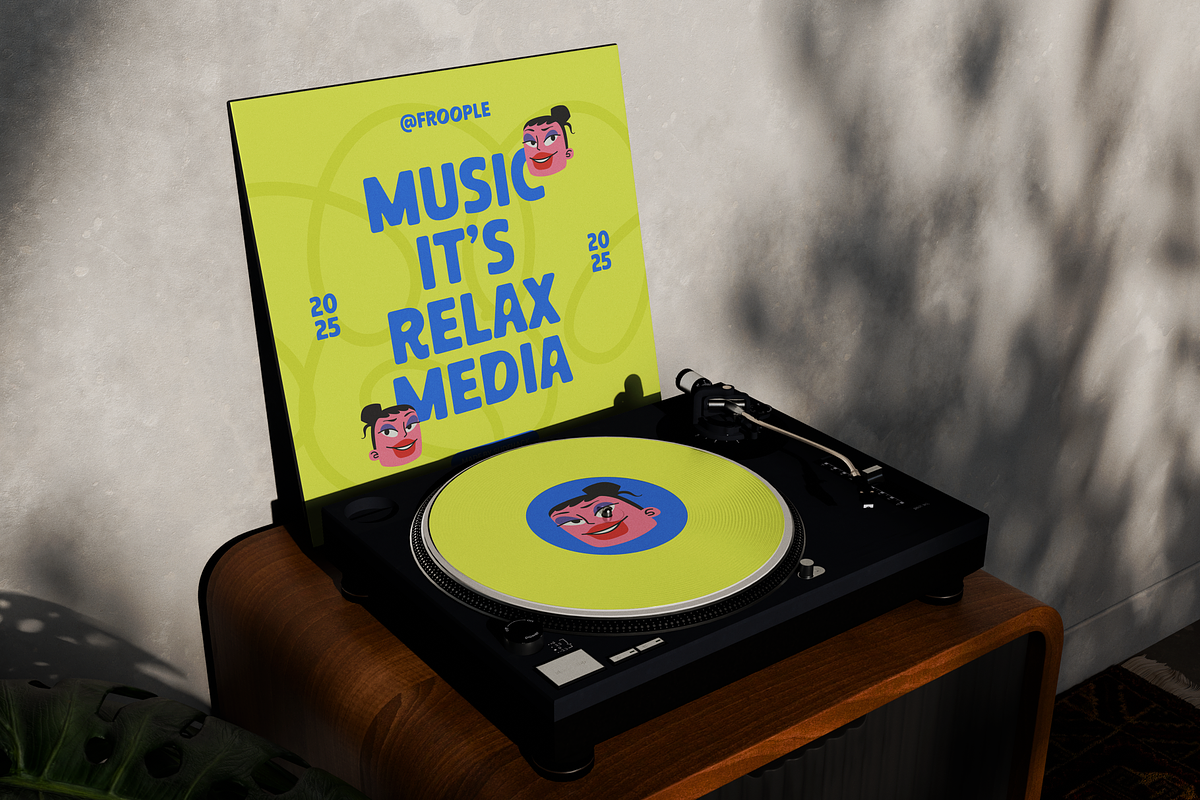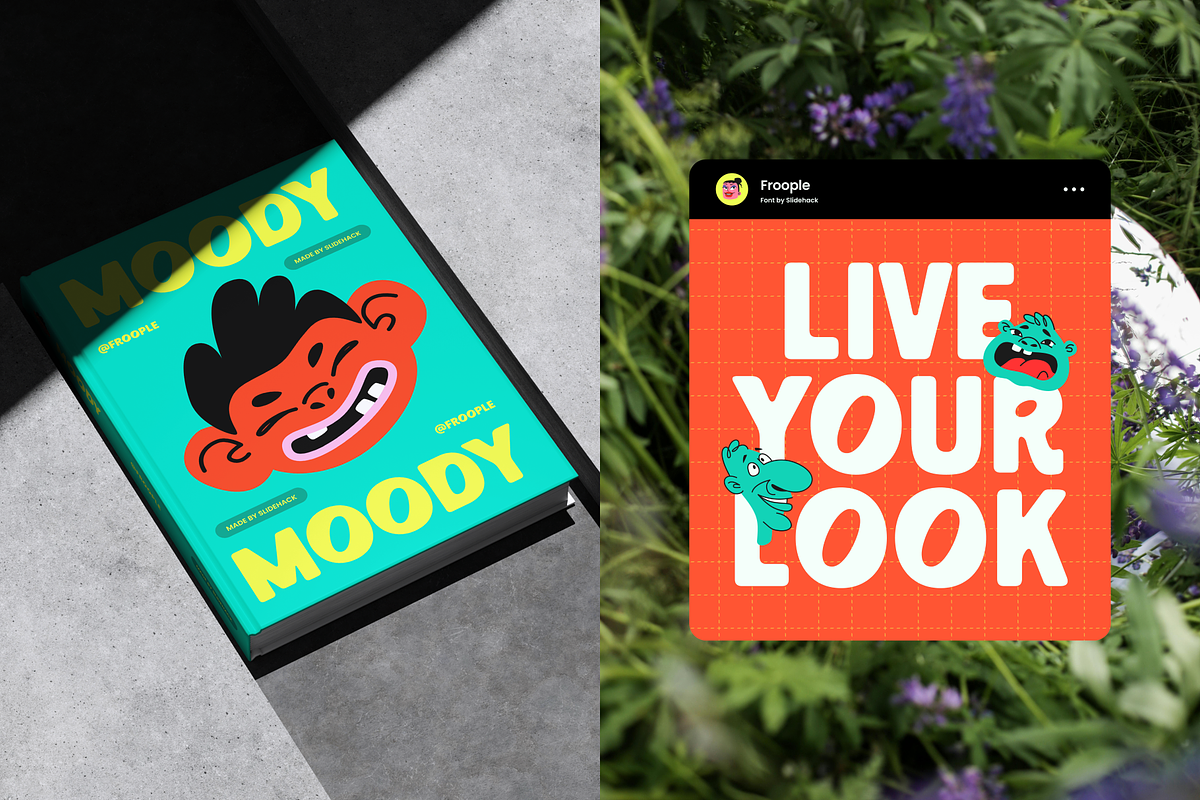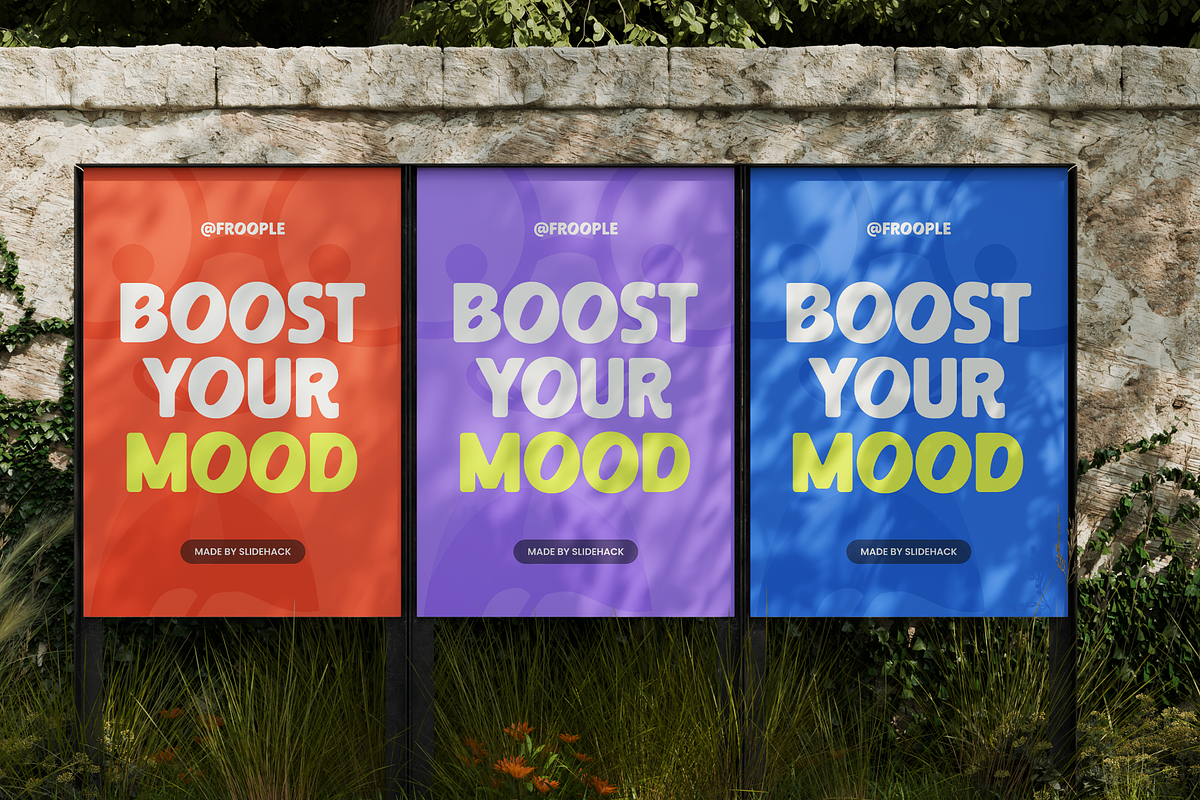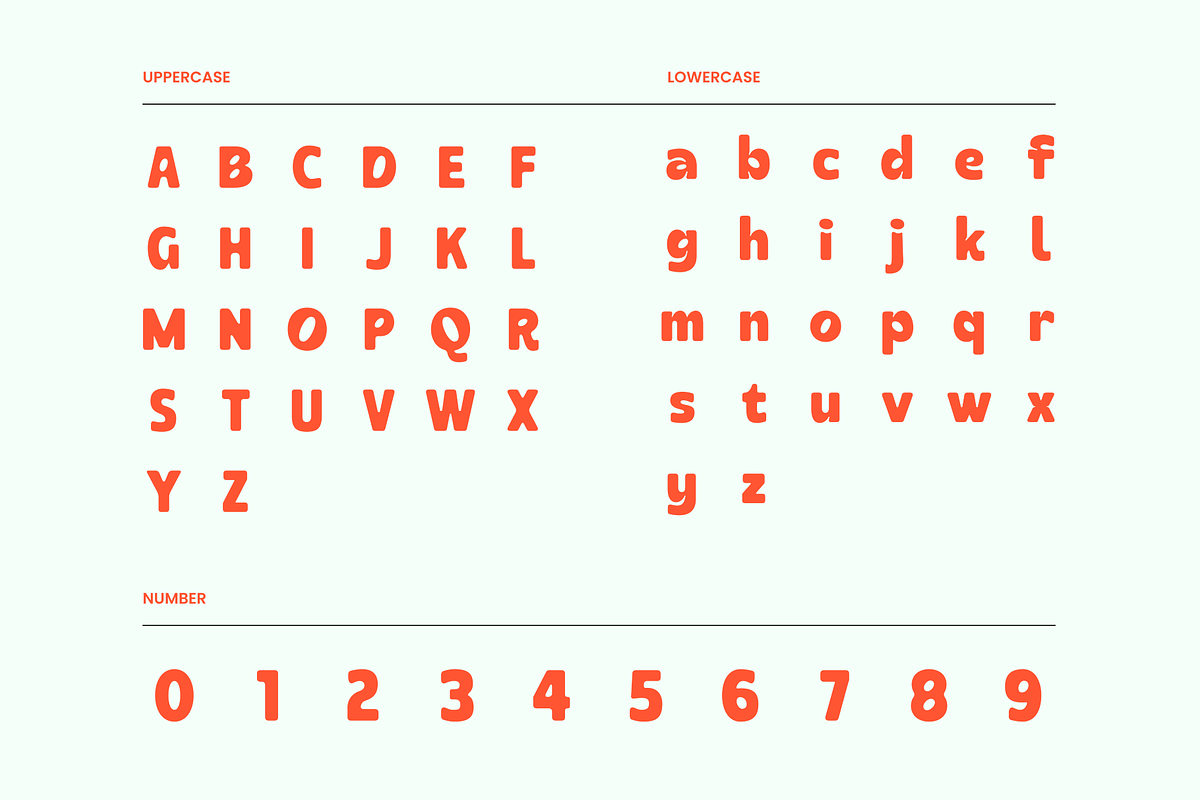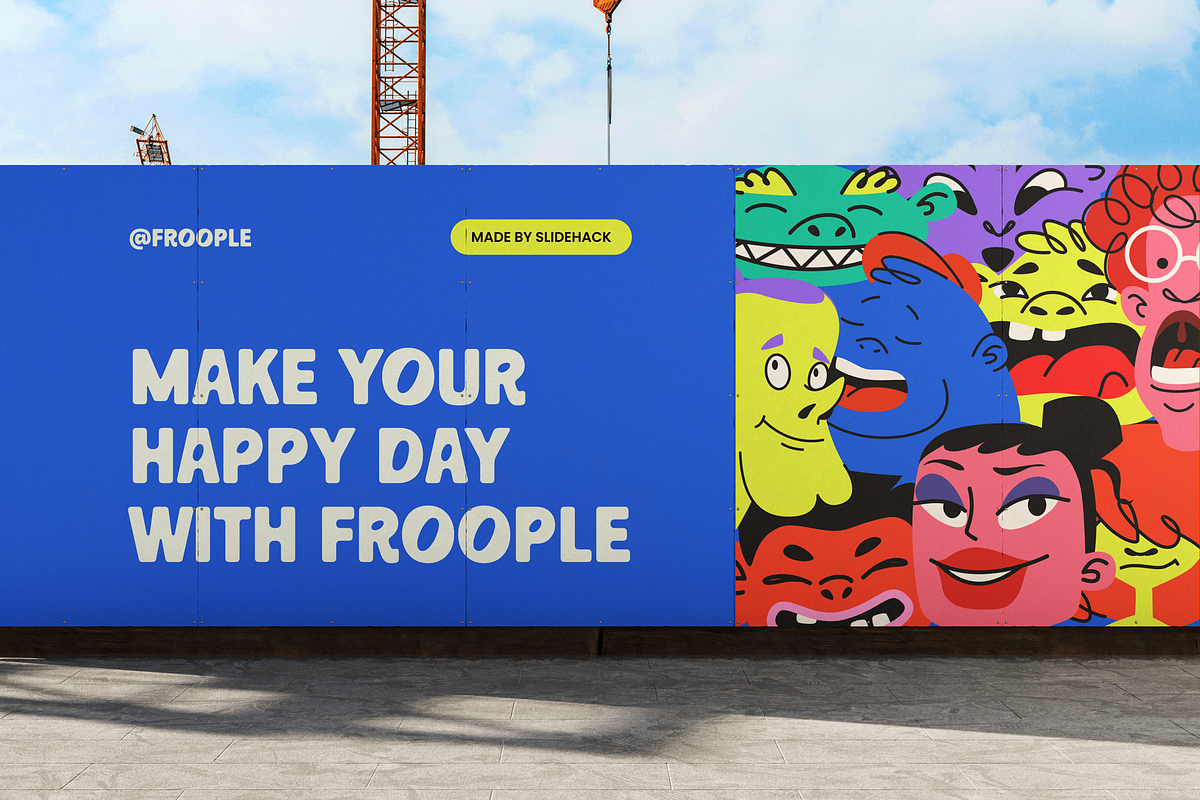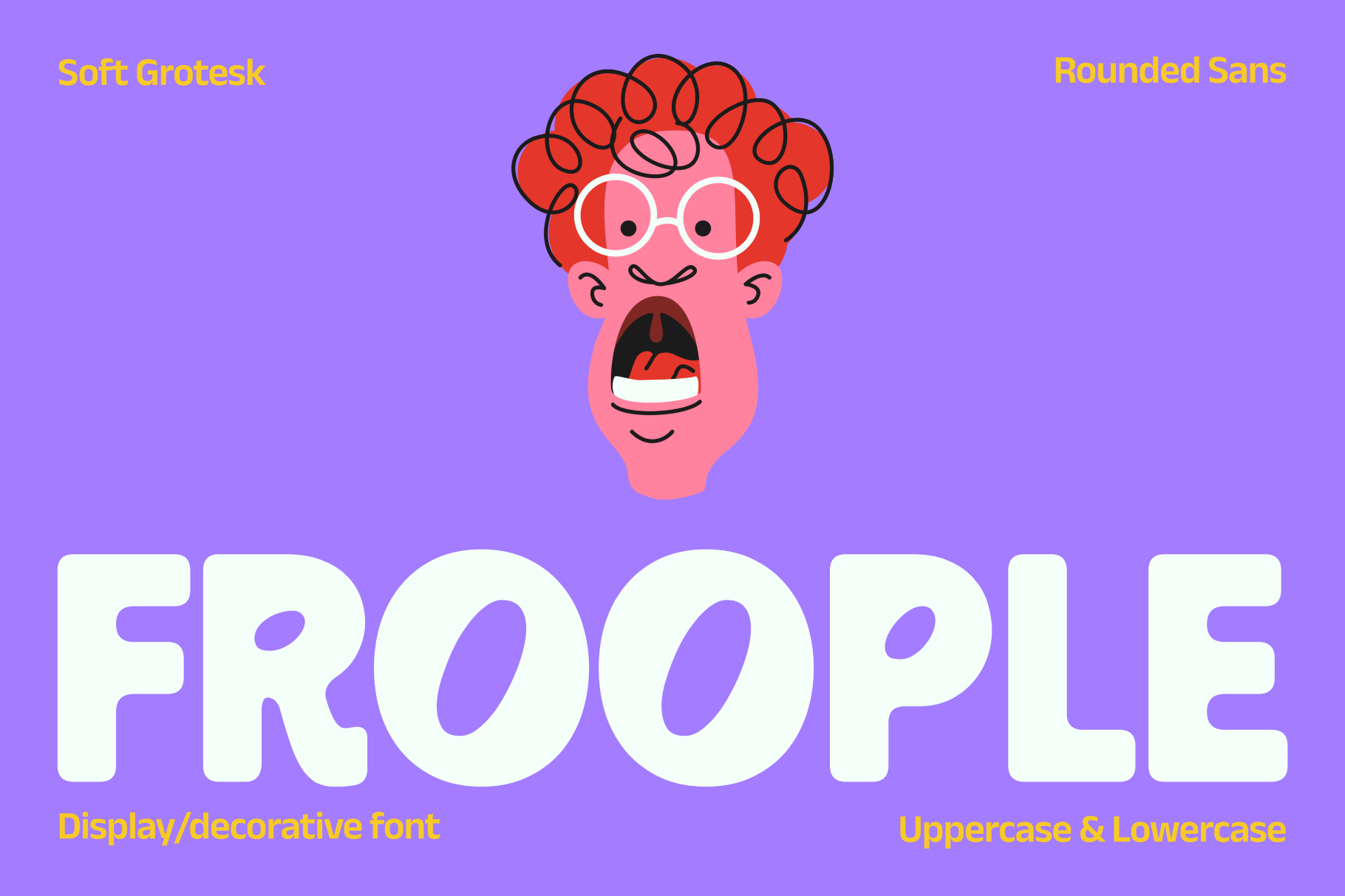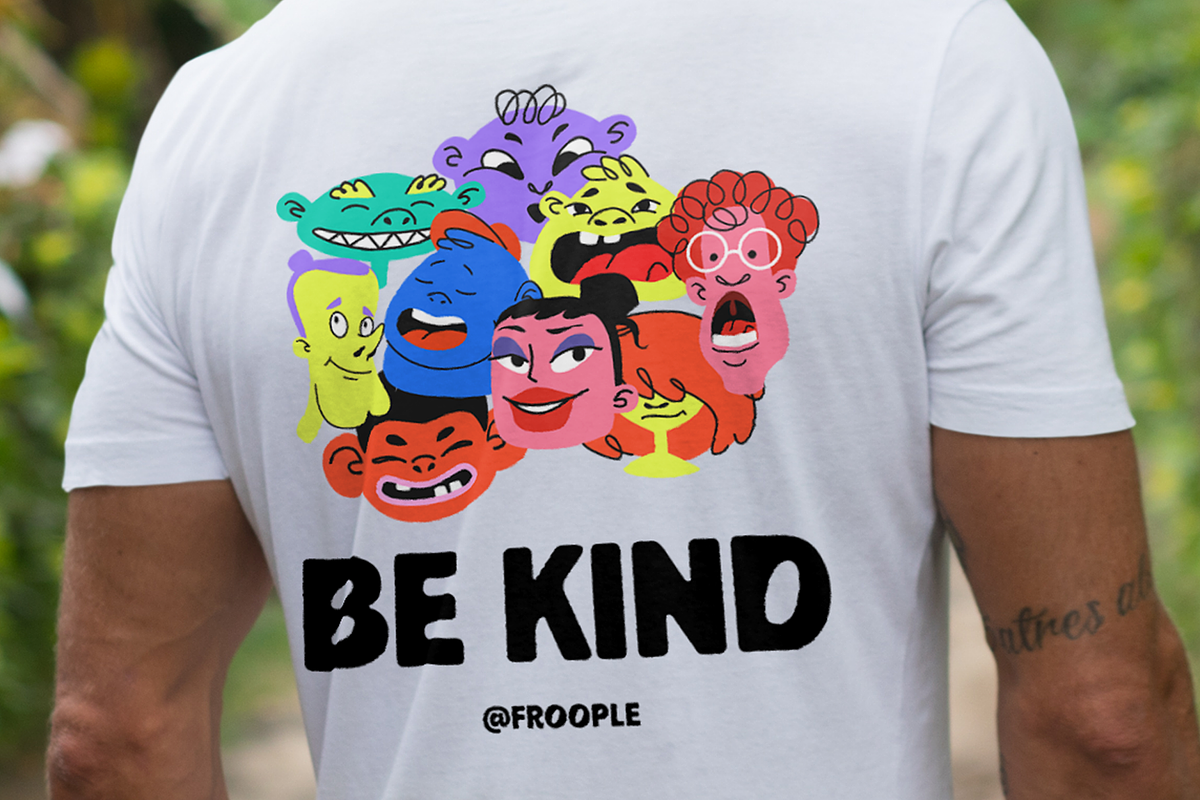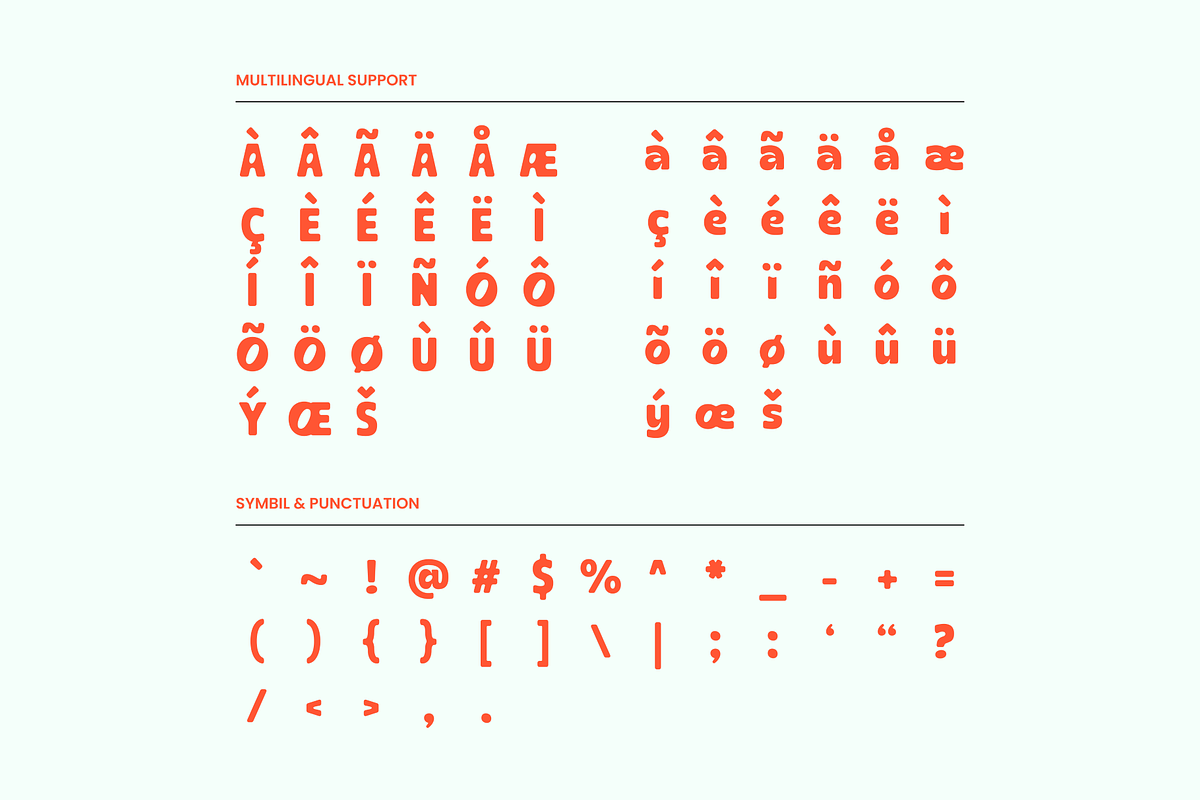
Froople - Playful Display Font
Froople is a fun and playful display font with soft, rounded shapes and a bold grotesk style. Perfect for branding, posters, children’s designs, and social media, it brings cheerful energy to any project. Includes uppercase and lowercase letters, ideal for eye-catching headlines and creative typography.